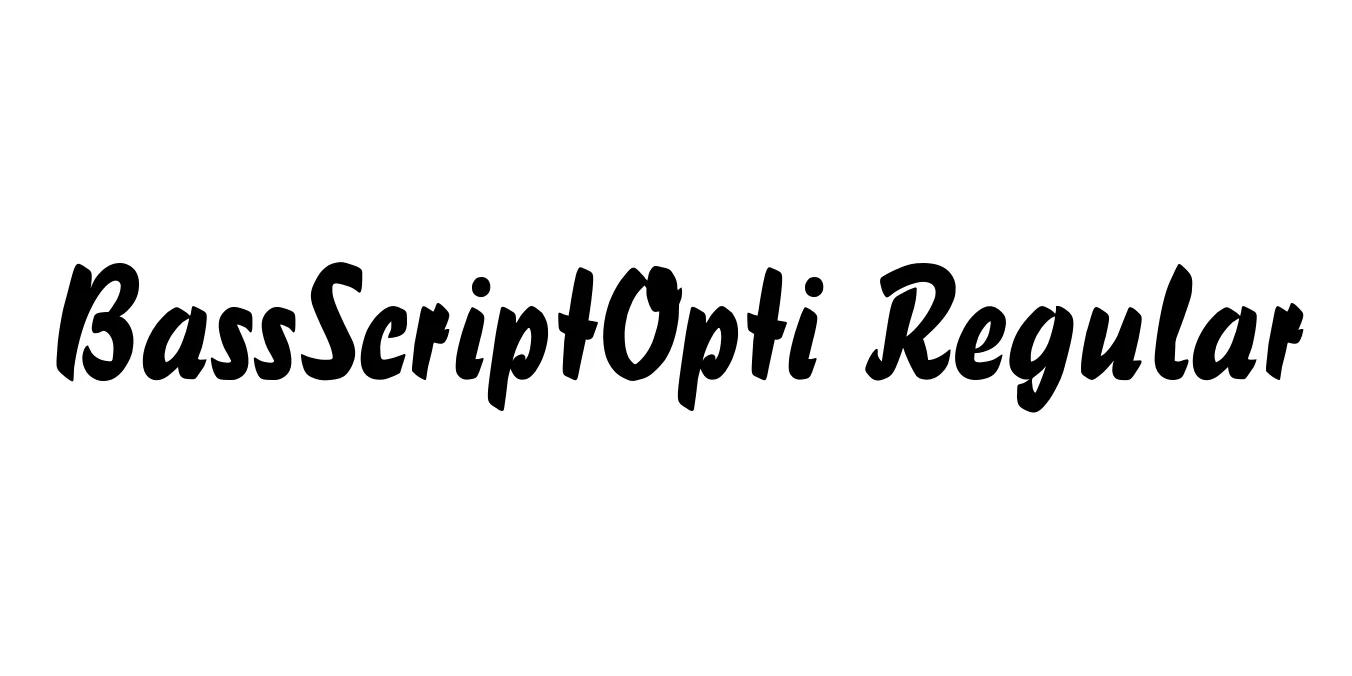
BassScriptOpti Regular
Designed by Castcraft Software (OptiFont)
BassScriptOpti Regular is a sophisticated and fluid script typeface that draws heavy inspiration from the mid-20th-century aesthetic of hand-lettered brush scripts. Part of the renowned OptiFont collection by Castcraft Software, this font features elegant, high-contrast strokes and rhythmic connections that mimic the flow of a professional calligrapher's pen. Its design is rooted in the golden age of advertising, where personality and craftsmanship were paramount in typography.
This typeface is characterized by its sweeping ascenders and descenders, making it a standout choice for high-end decorative work. BassScriptOpti successfully bridges the gap between formal invitation styles and casual brush lettering, offering a versatile tool for designers who need to inject a sense of nostalgia, luxury, or artistic flair into their modern digital projects while maintaining excellent legibility.
BassScriptOpti Regular Best Uses
Ideal for upscale boutique branding and professional identity systems.
Perfect for high-end wedding invitations and formal greeting cards.
Great for vintage-themed posters and 1950s-style marketing materials.
Elegant for social media quotes and high-fashion editorial overlays.